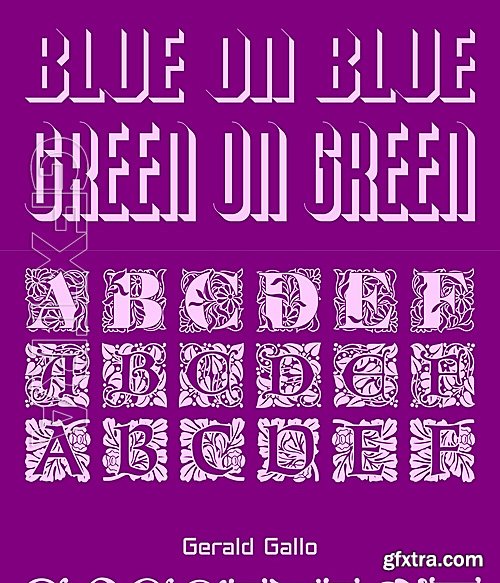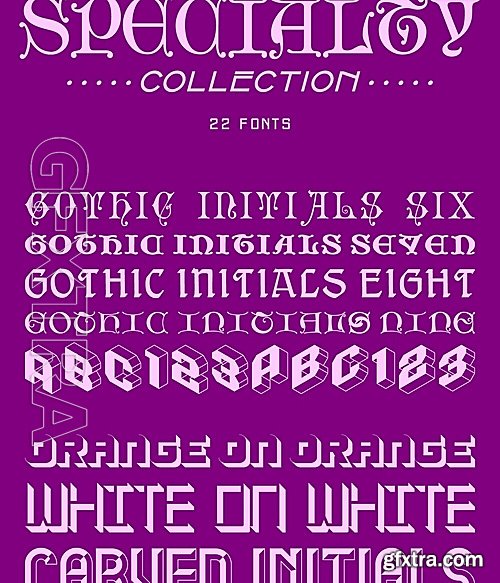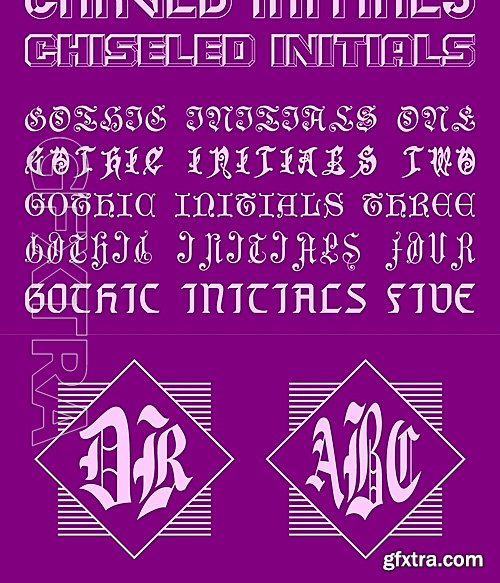
The fonts of the Specialty Collection are not intended for text use. They are intended only for use in special applications such as initials, monograms, headings and titles. There are 4 fonts with characters whose 3D-simulated depth is the only visible portions; 2 fonts which appear to have embossed characters; 9 gothic initials fonts inspired by the beautifully-written gothic scripts of medieval scribes; 2 fonts whose characters are drawn in isometric projection giving the appearance of three-dimensional objects; 3 fonts composed of a floral ornament combined with a letter or number and 2 fonts for creating diamond-shaped monograms in 2 or 3 characters.